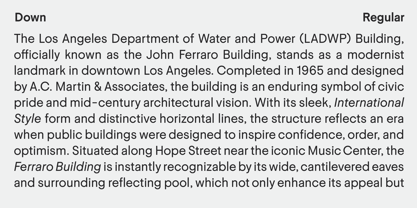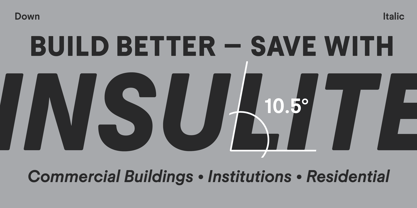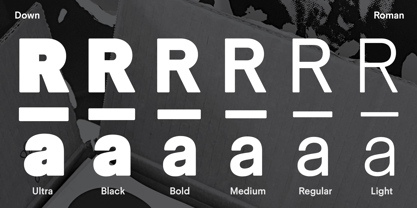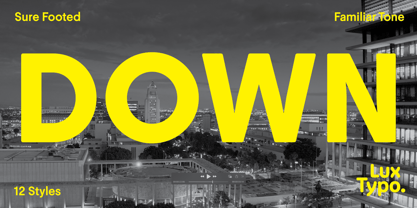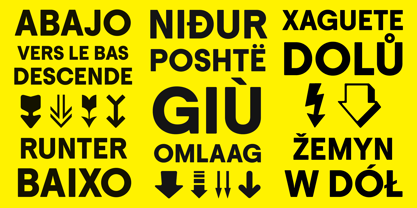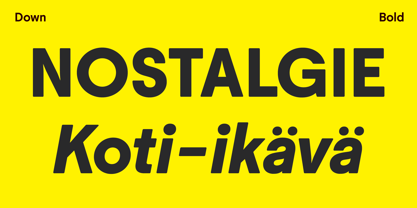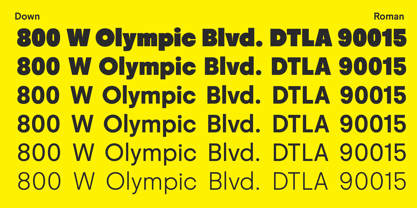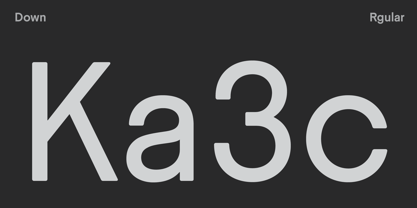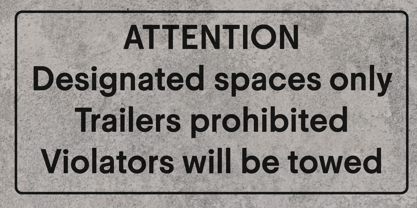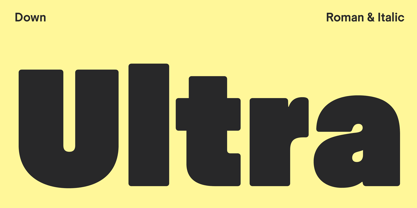
Down
von LuxTypo
Die Schriftfamilie Down wurde von Greg Lindy entworfen und von LuxTypo veröffentlicht. Down enthält 12 Stile und Familienpaketoptionen. Mehr über diese Familie
Down is a typeface that embodies restraint while drawing inspiration from established models of clarity and legibility. Its origin story is rooted in a hospital sign that simply read "Down," showcasing a lettering style that exudes quiet confidence. The design features familiar forms and proportions that strike a balance between functionality and humanity, devoid of unnecessary ornamentation yet rich in character. As the design evolved, it transitioned from a mere exercise in simplicity, stability, and balance to a unique voice that transcends utility. Each refined curve and counter reflects the essence of its inspiration while introducing a distinct rhythm and personality. This transformation marks a shift from replication to discovery, paving the way for a purposeful and innovative typeface suitable for branding, editorial, and web applications, making it a versatile choice for modern design needs.